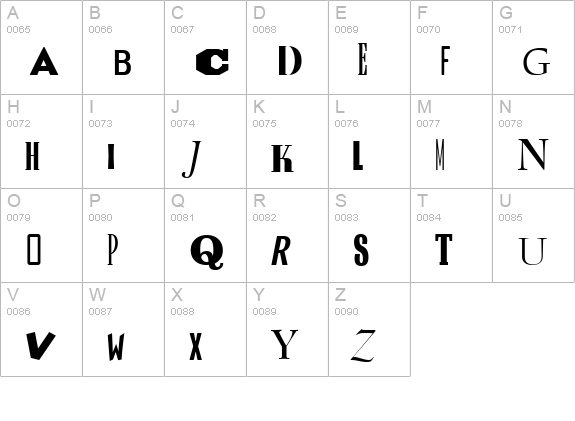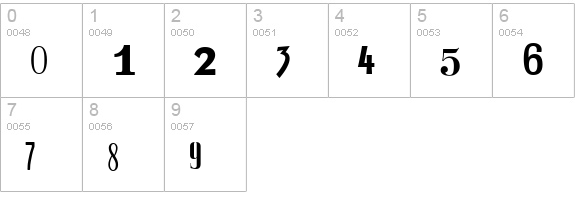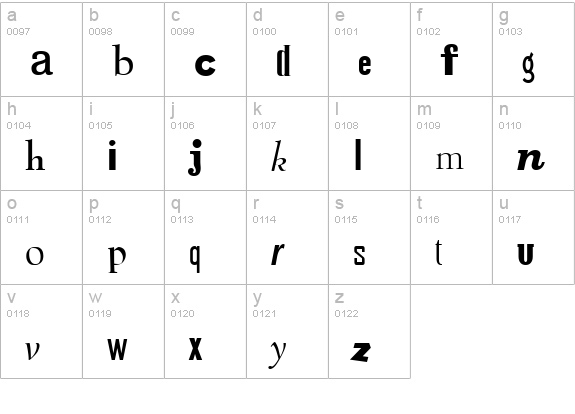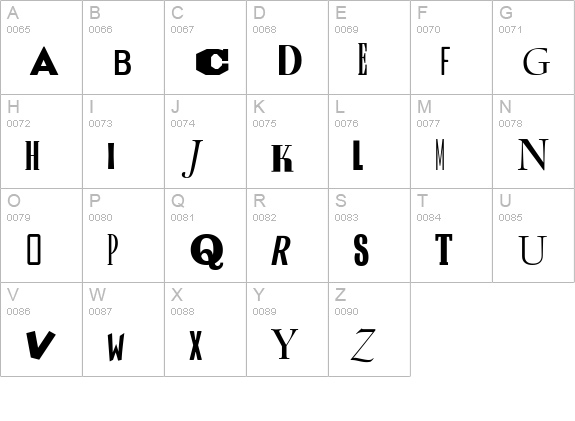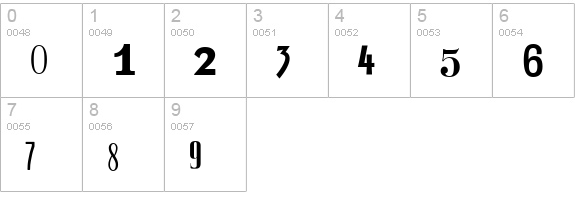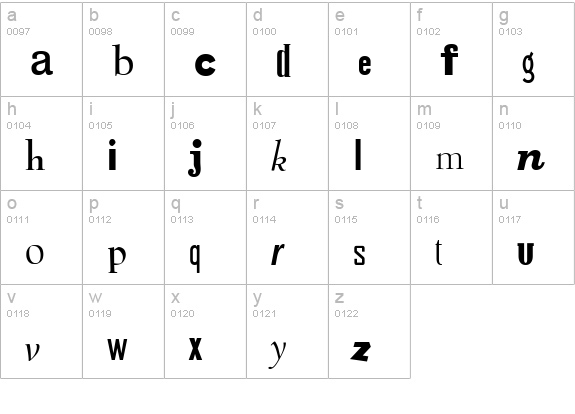
Ransom Italic is a distinctive, italic variant in the Ransom typeface family \xE2\x80\x94 well suited to design and typography projects.
Introducing Ransom Italic, a captivating font that effortlessly combines elegance with a touch of whimsy. This unique typeface is perfect for adding a dash of personality to any design project, whether it be a logo, branding materials, or even a creative invitation. With its graceful curves and playful letterforms, Ransom Italic captures attention and invites the reader to delve deeper into the world of your message. Each character is meticulously crafted, resulting in a font that is both aesthetically pleasing and highly legible. One of the standout features of Ransom Italic is its versatility. It adapts seamlessly to a variety of design styles and themes, making it a go-to choice for designers looking to make a bold statement. Whether you're aiming for a modern, edgy look or a more traditional and refined aesthetic, this font has you covered. And the best part? Ransom Italic is freely available to download at FontsMarket.com. Yes, you read that right - this exquisite font can be yours with just a few clicks. No need to break the bank or compromise on quality; Ransom Italic offers the best of both worlds. So why wait? Elevate your design projects with Ransom Italic and let your creativity soar. Download it today from FontsMarket.com and unlock a world of possibilities.